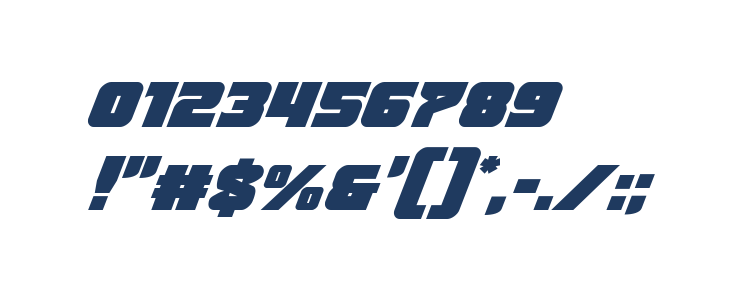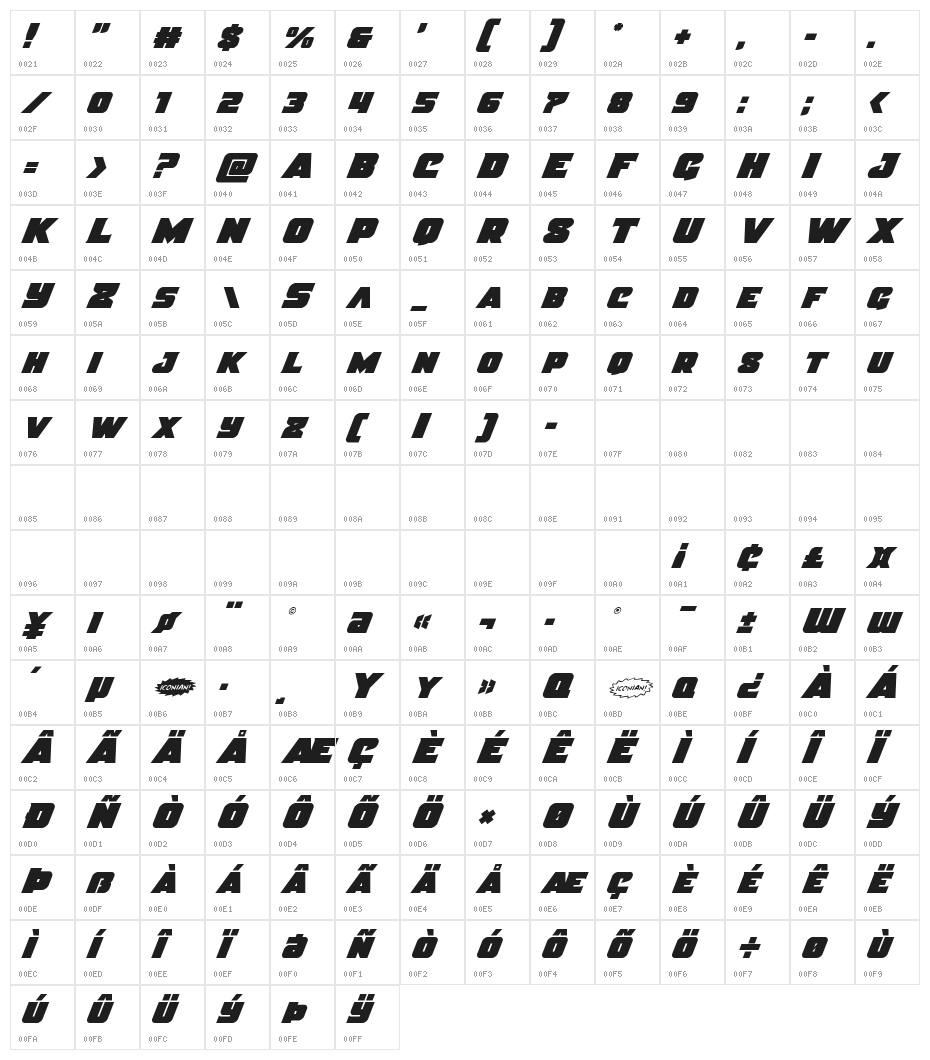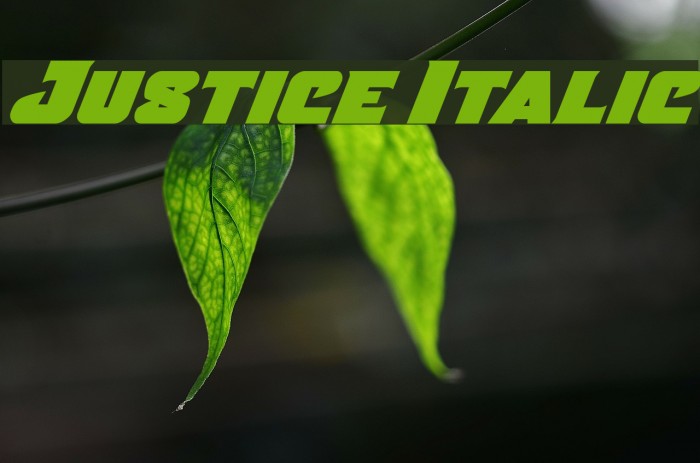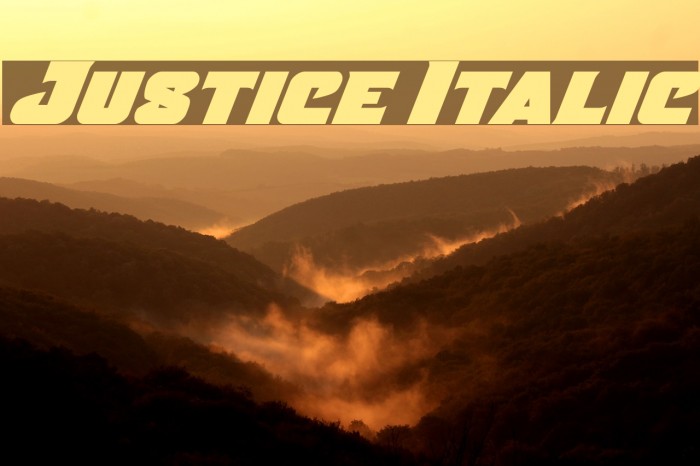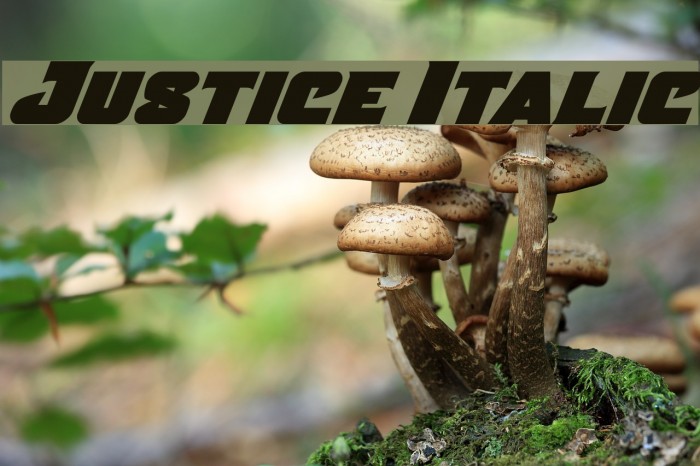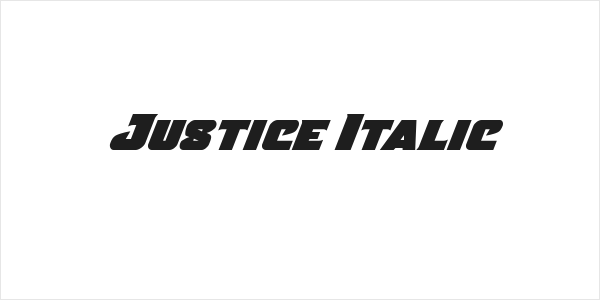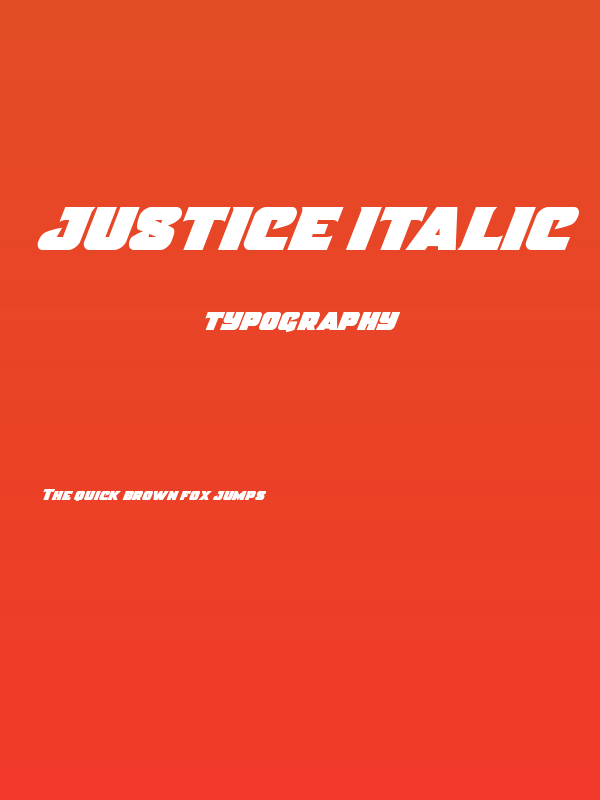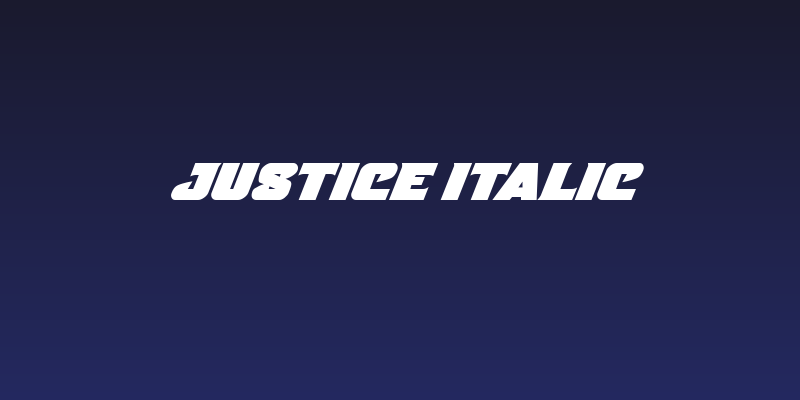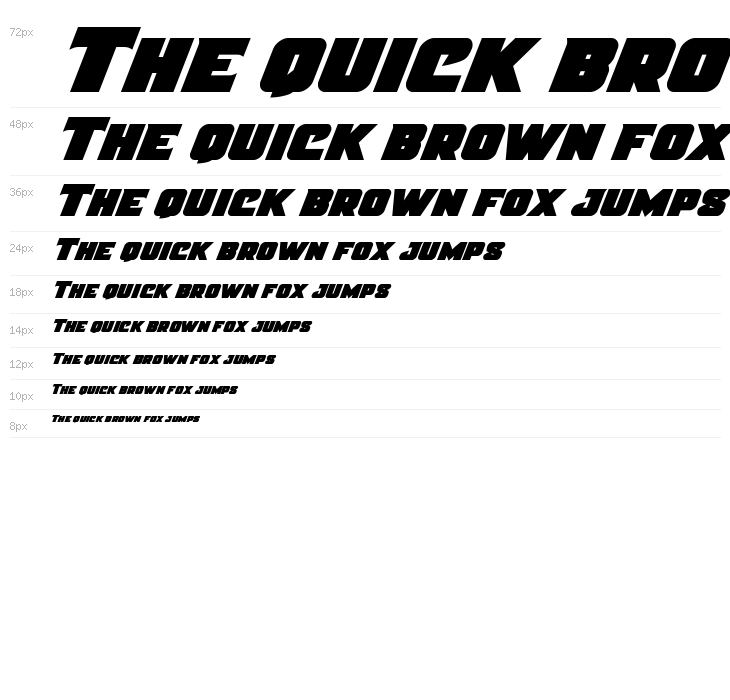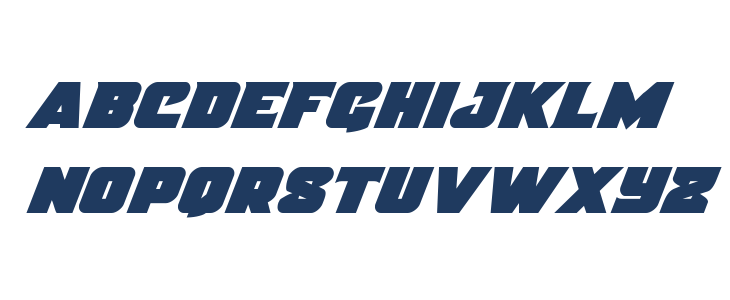
Justice Italic Font
Justice Italic Description
This font features a bold, italicized style with a strong, dynamic presence. The characters are sharply angled, giving a sense of motion and energy. The uppercase and lowercase letters maintain a consistent slant, enhancing the italic effect. The numbers and special characters follow the same design principles, ensuring uniformity across all glyphs. The strokes are thick and consistent, contributing to a high contrast appearance. This font is ideal for projects that require a bold statement or a sense of urgency.
| Proposed Projects | Ideal for sports branding, action movie posters, or dynamic advertising campaigns. |